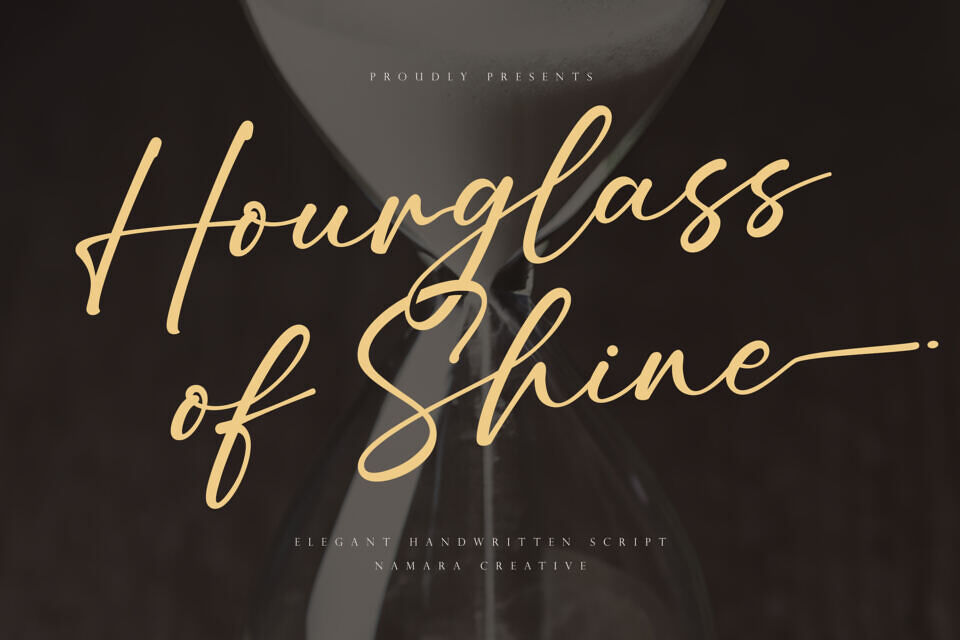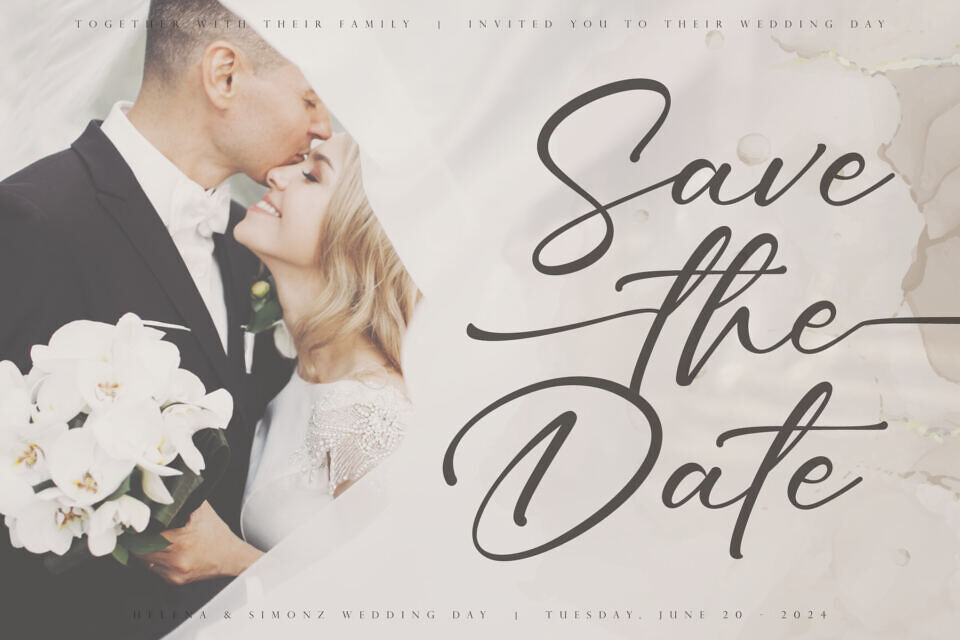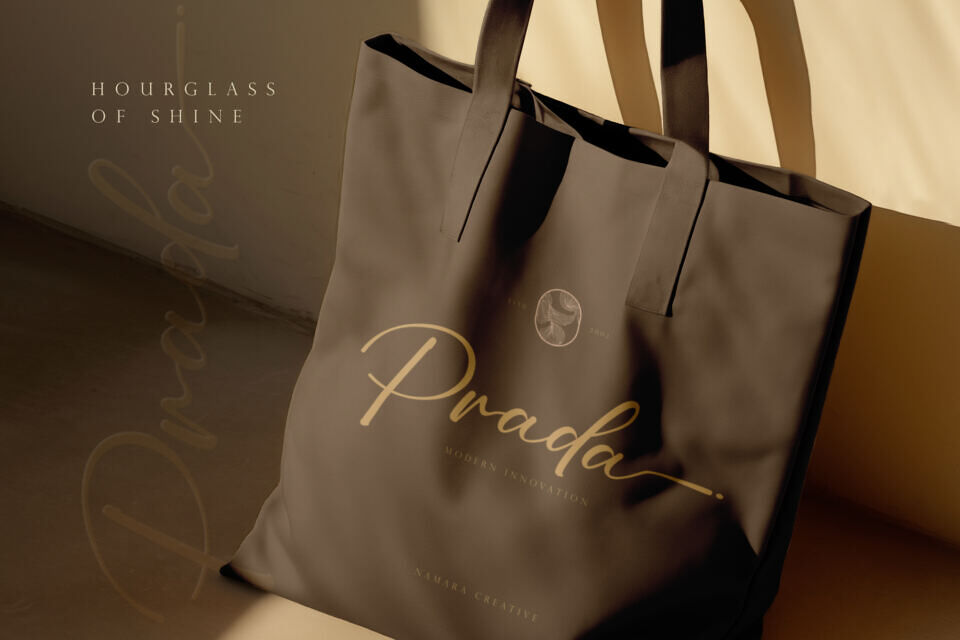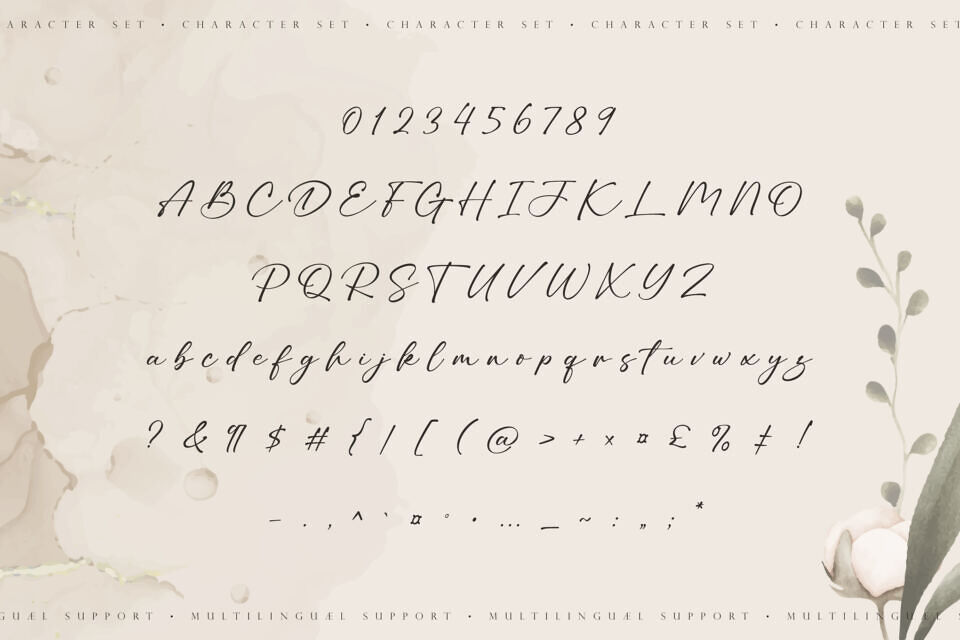
Hourglass Of Shine Font
The Hourglass Of Shine font brings a touch of sophistication to any project with its elegant, handwritten style. Its natural charm and beautiful flourishes make it perfect for adding a level of refinement to your designs, drawing in your audience with its classic beauty.